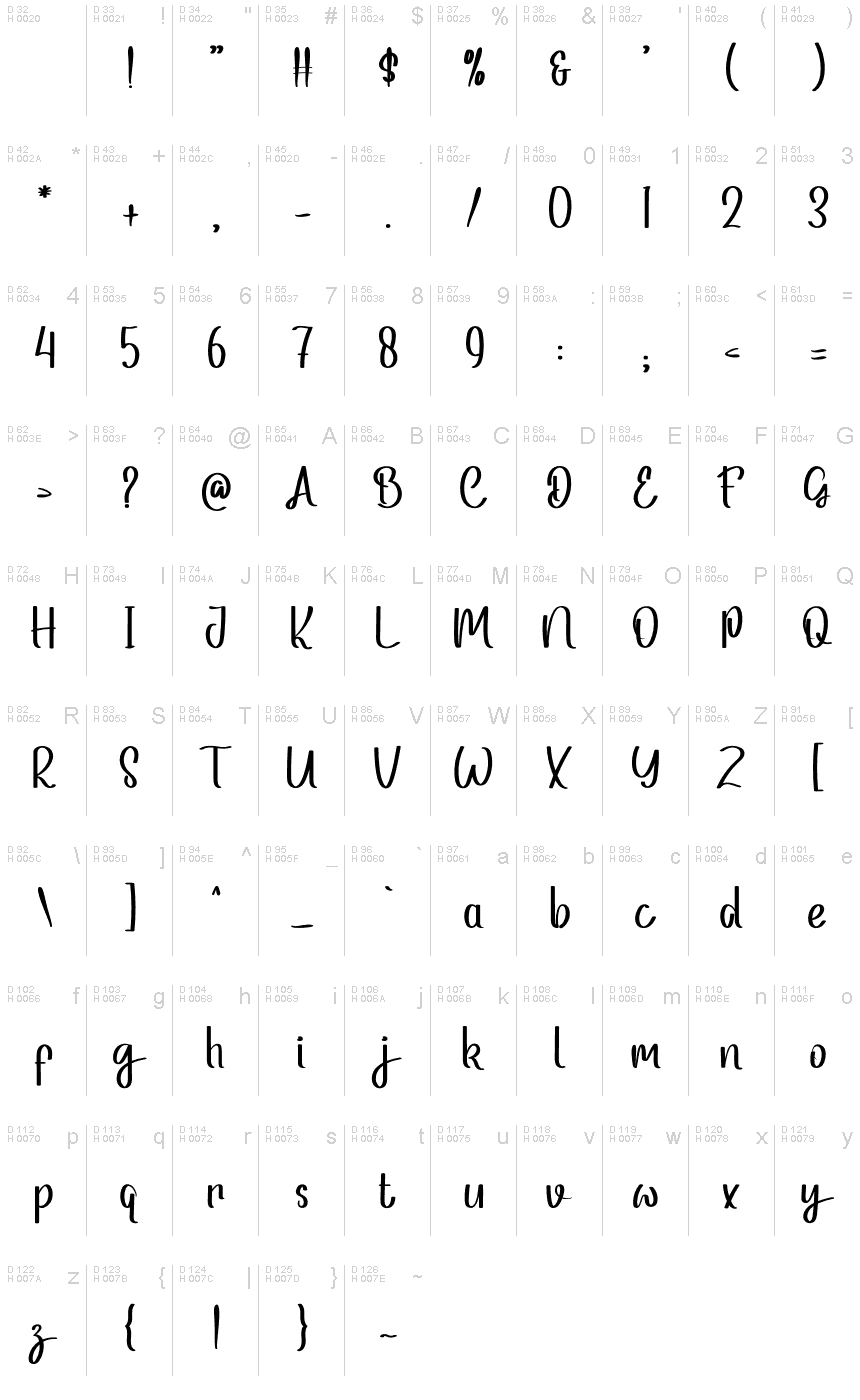
Someone
Introducing Someone, a casual handwritten font designed by Inermedia Studio. This playful font is perfect for giving your projects an informal and welcoming feel, from crafting greeting cards to creating unique logos.